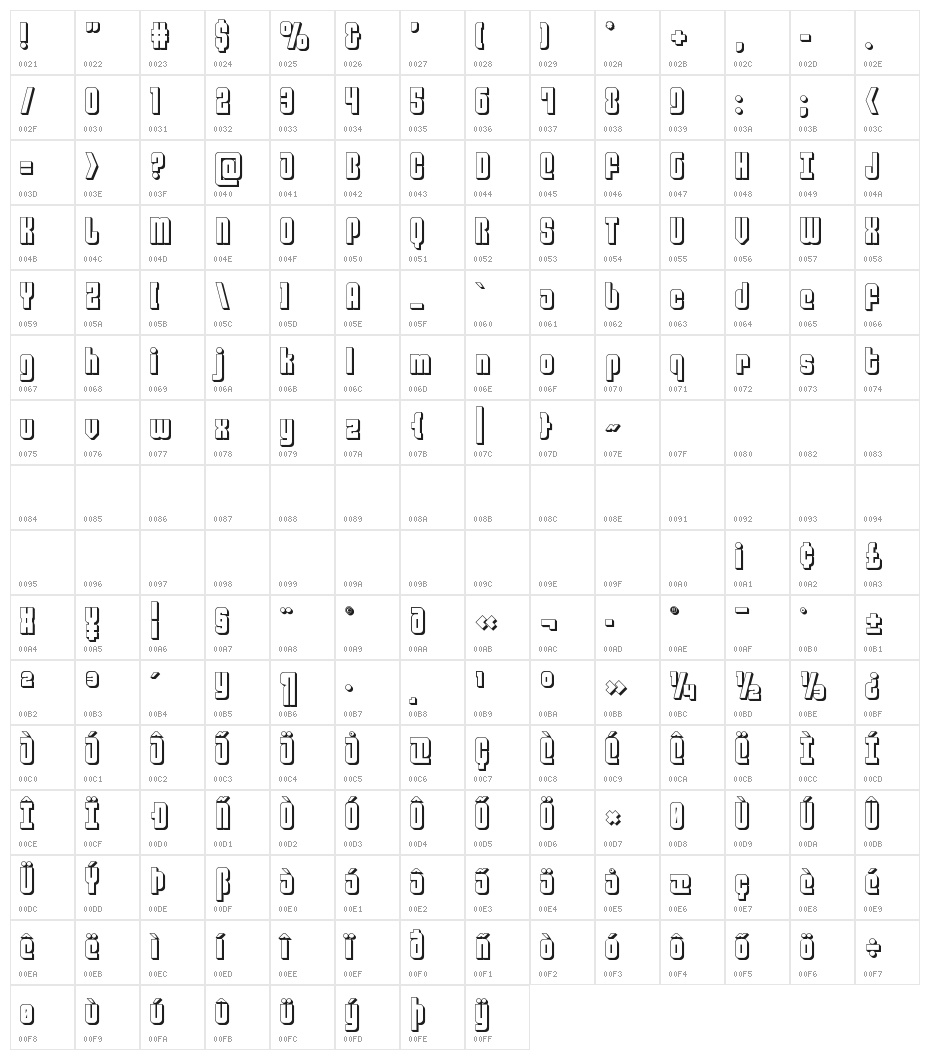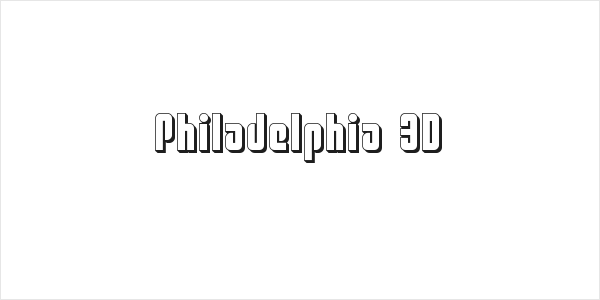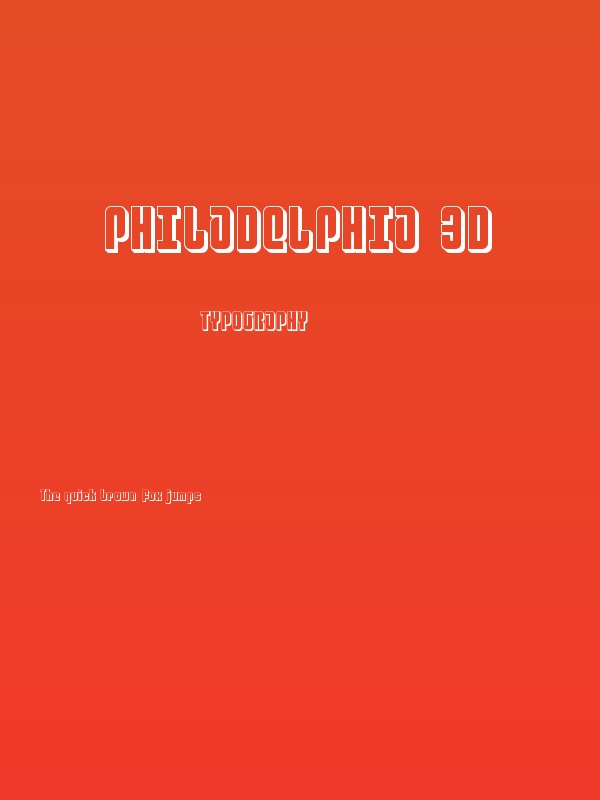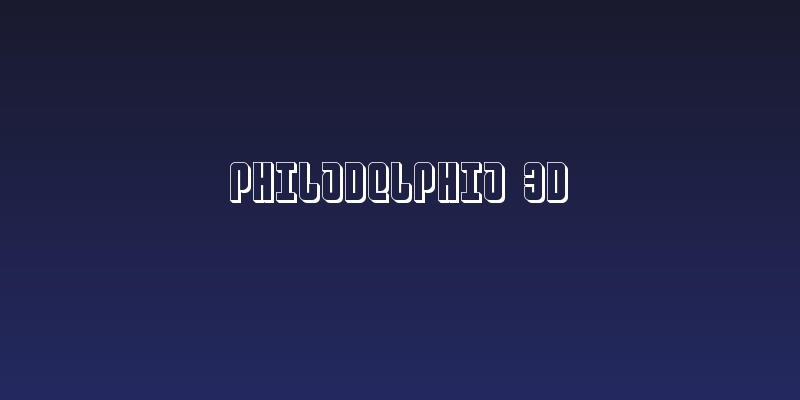
Philadelphia 3D Font
Philadelphia 3D Description
This font features a bold, three-dimensional style that gives each character a striking, shadowed effect. The uppercase and lowercase letters maintain a consistent geometric structure, with sharp angles and clean lines. The numbers and special characters follow the same design principles, ensuring uniformity across the typeface. The 3D effect is achieved through a clever use of shading, which adds depth and a sense of movement to the text. This font is ideal for creating eye-catching headlines or logos that require a modern and dynamic appearance. Its unique style makes it stand out, making it perfect for projects that aim to capture attention and convey a sense of innovation and creativity.
Proposed ProjectsIdeal for headlines, logos, posters, and any design needing a modern, dynamic look.